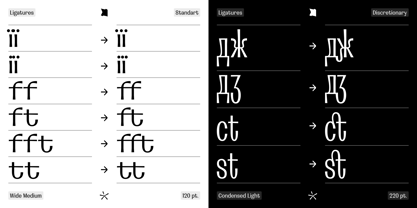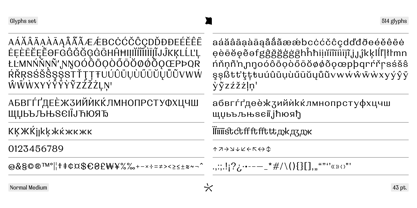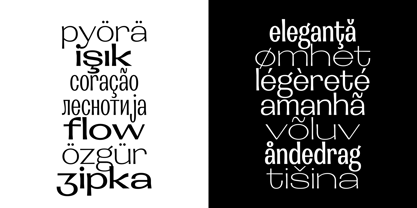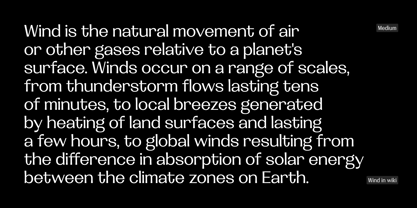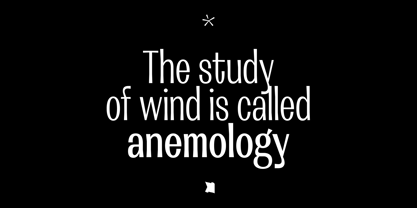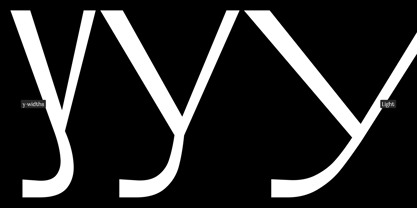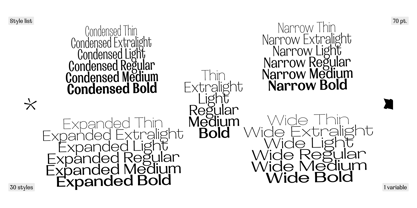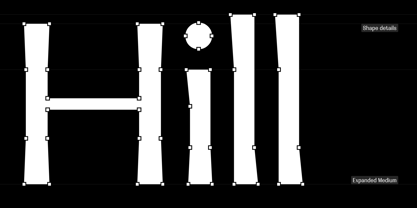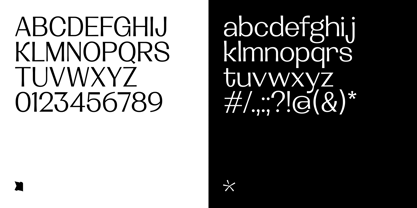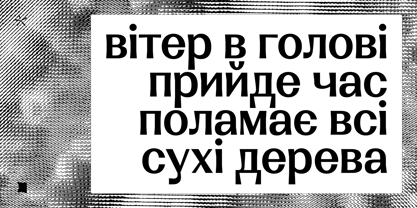
Lehit
by Tkachenko design
Lehit — a Ukrainian term (ukr. Легіт) meaning a zephyr, or a soft, gentle breeze. Figuratively, "Lehit" conveys a quiet noise or hum, reminiscent of a light breeze. This essence is captured in the vibe of the font. A standout feature of the Lehit font is its variable-width axis, which alters not only the width of specific characters but also their form, particularly in letters such as y, k, t, and f. This unique design makes it ideal for various applications, including branding, editorial, and web use, providing versatility and elegance in typography.